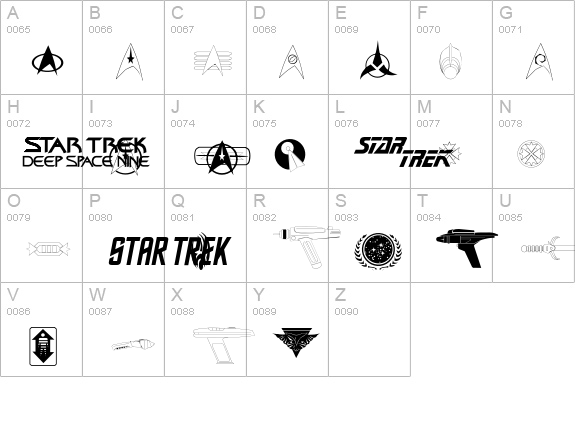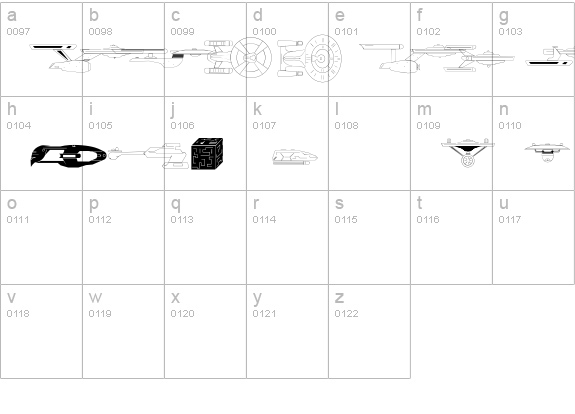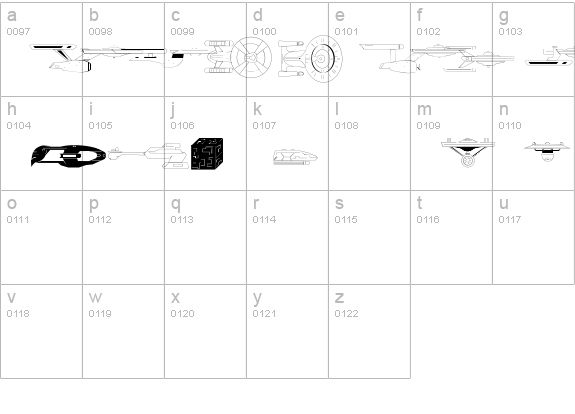
Trekbats Font Details
Introducing Trekbats, a truly remarkable font that combines elegance, versatility, and a touch of nostalgia. This font is a perfect choice for those seeking a unique and captivating typeface that will instantly grab attention and leave a lasting impression. With its sleek lines and timeless design, Trekbats effortlessly blends modern aesthetics with a classic appeal. Each character is meticulously crafted, exuding a sense of sophistication and refinement. From its bold, eye-catching letterforms to its intricate details, this font is a true work of art. But what truly sets Trekbats apart is its versatility. Whether you're designing a logo, creating eye-catching headlines, or adding a touch of elegance to your website, this font can do it all. Its ability to adapt to various design projects is unparalleled, making it a must-have for designers and creatives alike. And the best part? Trekbats is completely free! That's right, this exceptional font is freely available to download at FontsMarket.com. We believe that great design should be accessible to all, and with Trekbats, you can create stunning visuals without breaking the bank. So why wait? Take your design projects to new heights with Trekbats. Download it today and let your creativity soar.